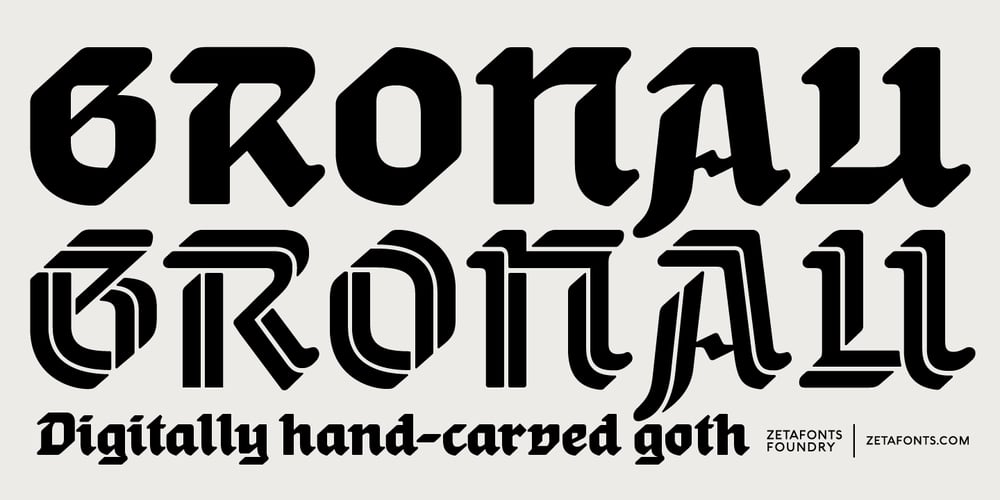
Gronau
Gronau font
Gronau Font Family was designed by Andrea Tartarelli, Mario De Libero and published by Zetafonts. Gronau contains 3 styles and family package options. Andrea Tartarelli discovered the letterforms that would inspire his Gronau family in a 1912 specimen that showcased the typeface Fette Reichs-Deutsch, designed by Wilhelm Gronau in 1902. Fette Reichs Deutsch has been digitised by Tartarelli as Gronau Fette. With Gronau Neue, Tartarelli tried to find a contemporary, gestural interpretation of blackletter shapes, adding a slightly calligraphic look and feel to the original hasty lines and energetic construction.